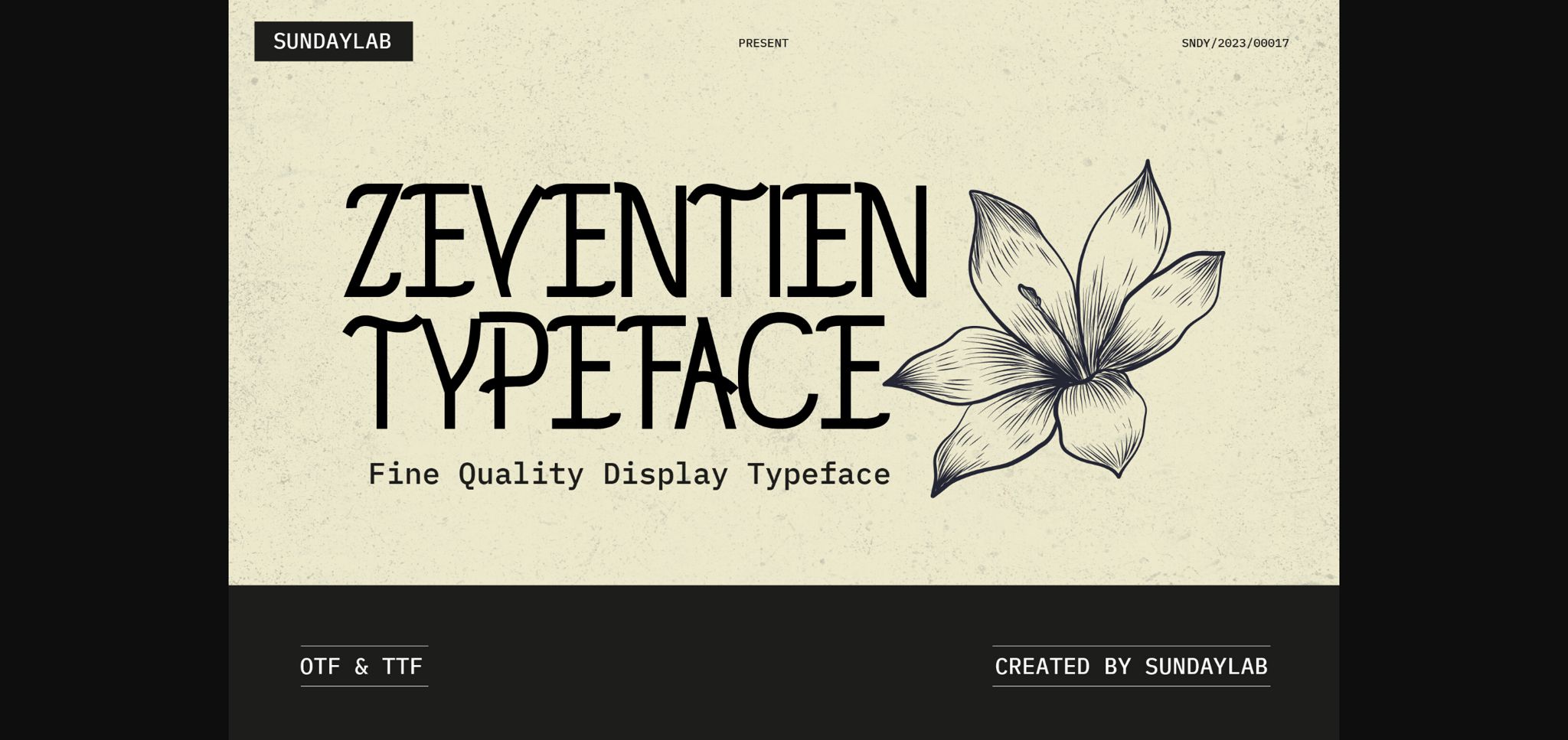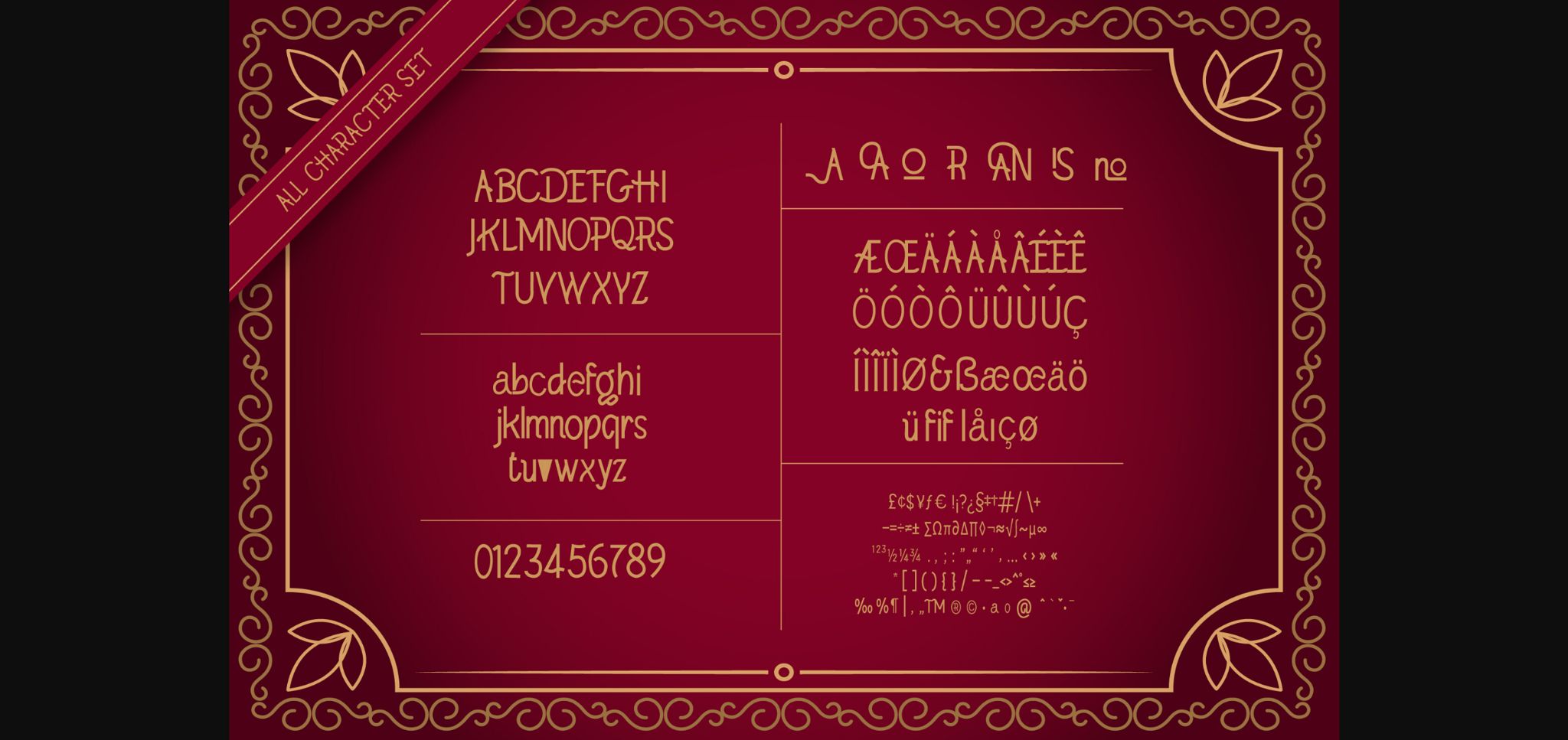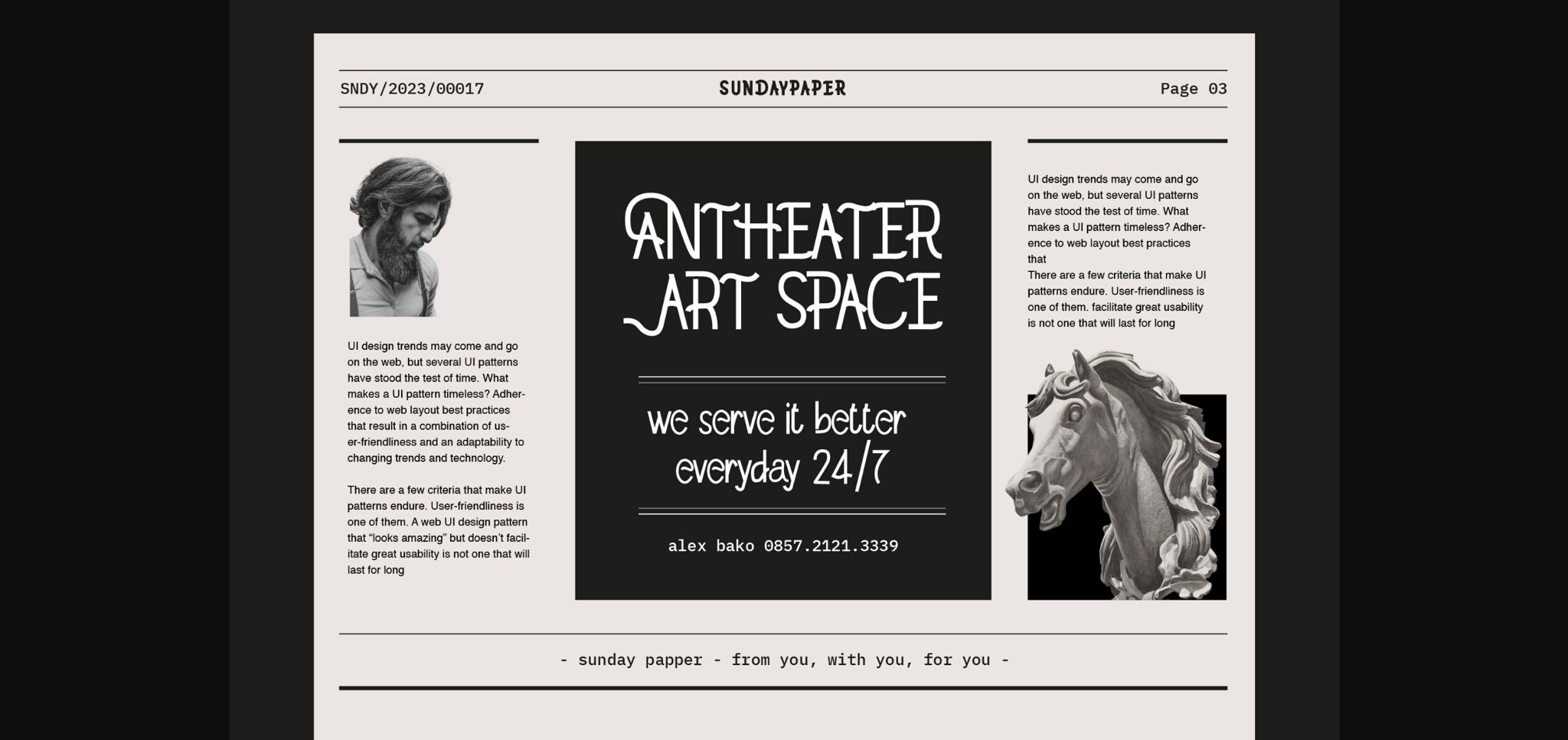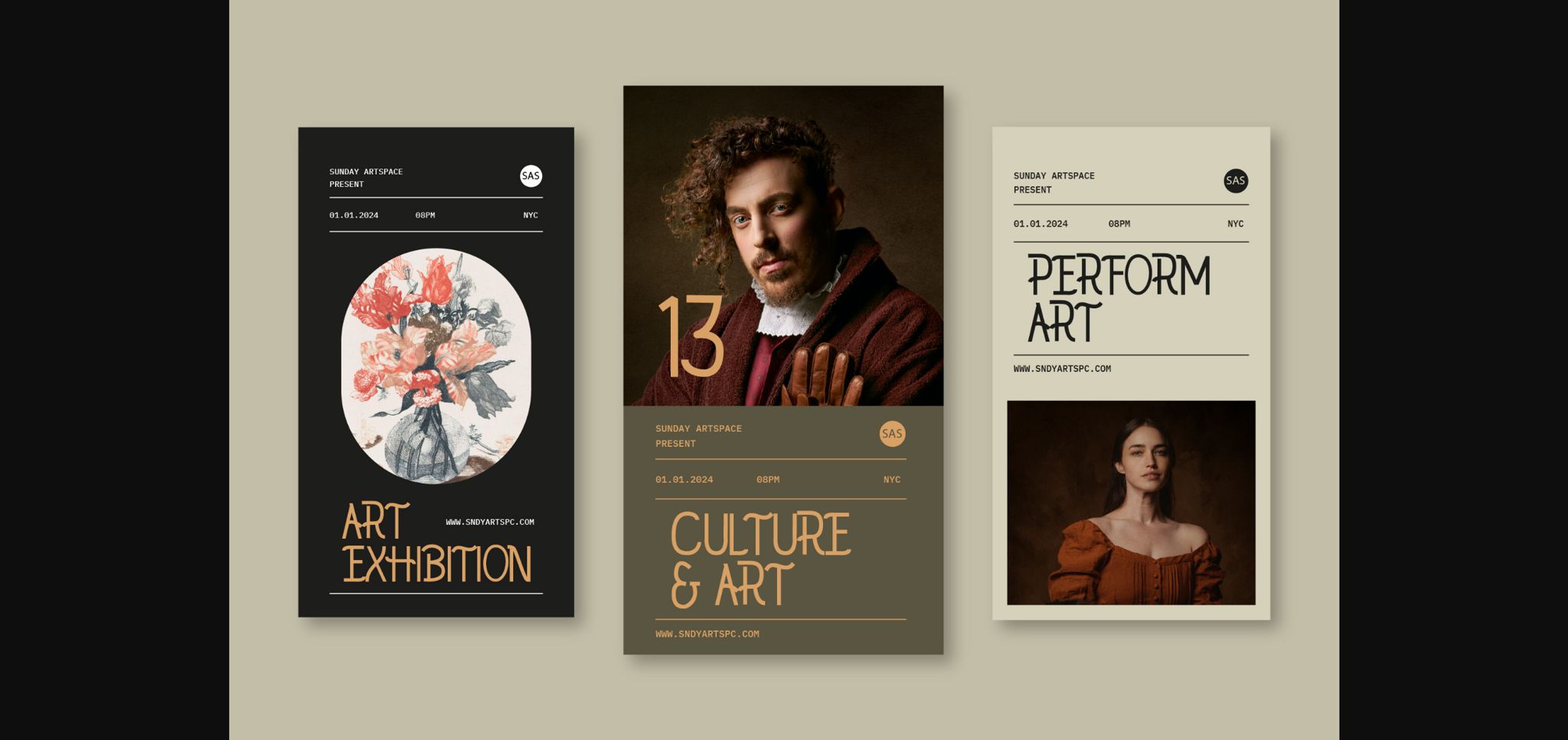
Zeventien Font
About Zeventien Font
Zeventien is a display font that can help display messages in the designs you create. With its vintage character, it is suitable for you to use on posters, flyers, magazine covers, books, vinyl, CDs, and many other media.